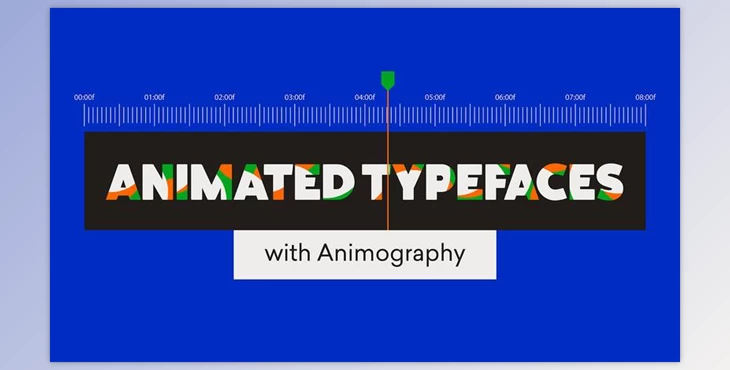
Learn how to set up your files to build robust and flexible typographic systems.
What's this course all about?
There are many digital screens that we use these days. From Billboards to smartphones. This is accompanied by a large demand for typography and motion design. The reason for this is that the motion design is viewed without audio.
This course will help you be taught how to make an animated typeface using After Effects. You can use it to type as the other types of fonts. However, it comes with the advantage of motion. It isn't easy to make it animated, but after you're done you can then apply it repeatedly to produce strong and consistent typographic content. Ideal for personal projects or to promote to customers as part of their motion branding.
What is Animated Typefaces with Animography?
"Animated Typefaces with Animography" likely refers to a collection of animated fonts or typefaces created and offered by Animography. Animography is a platform that specializes in providing animated typefaces, also known as motion fonts, for use in motion graphics, video editing, and other creative projects.
Animated typefaces combine traditional typography with motion design, allowing text to come to life with various animations and effects. These typefaces can be used to add dynamic and visually engaging text elements to videos, animations, presentations, and other multimedia projects.